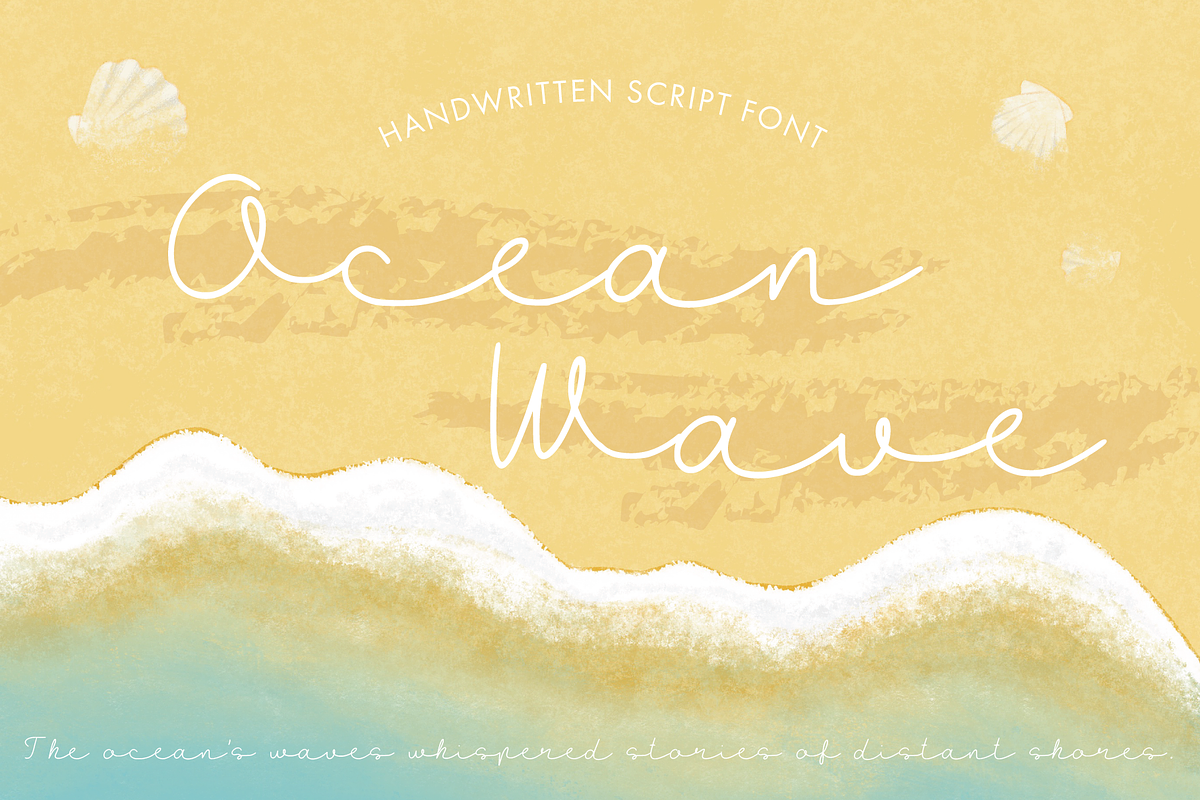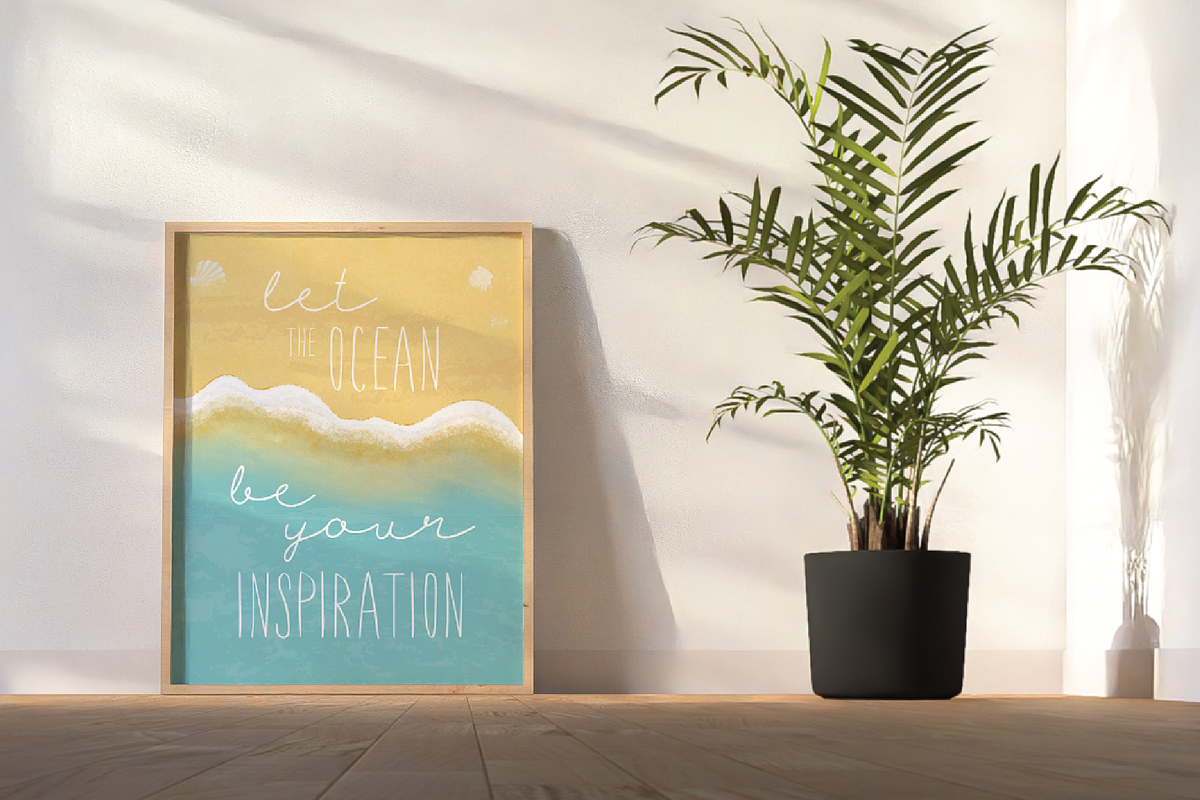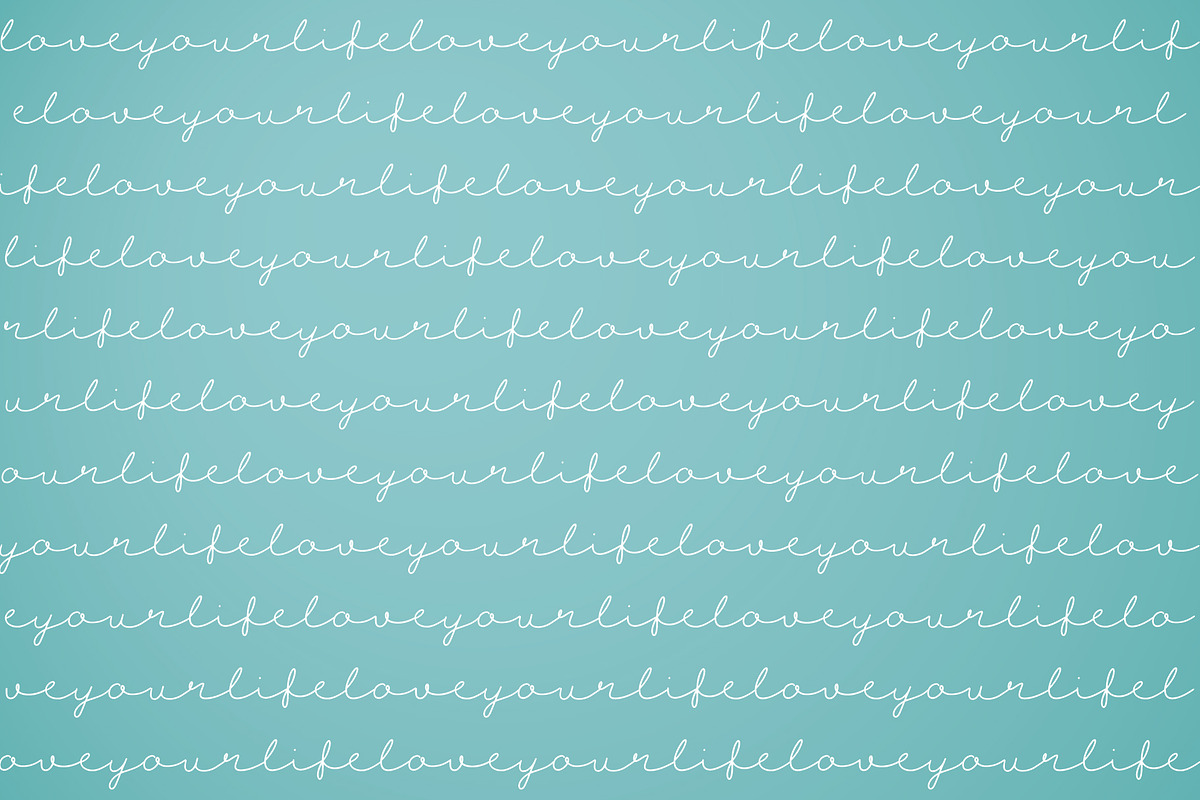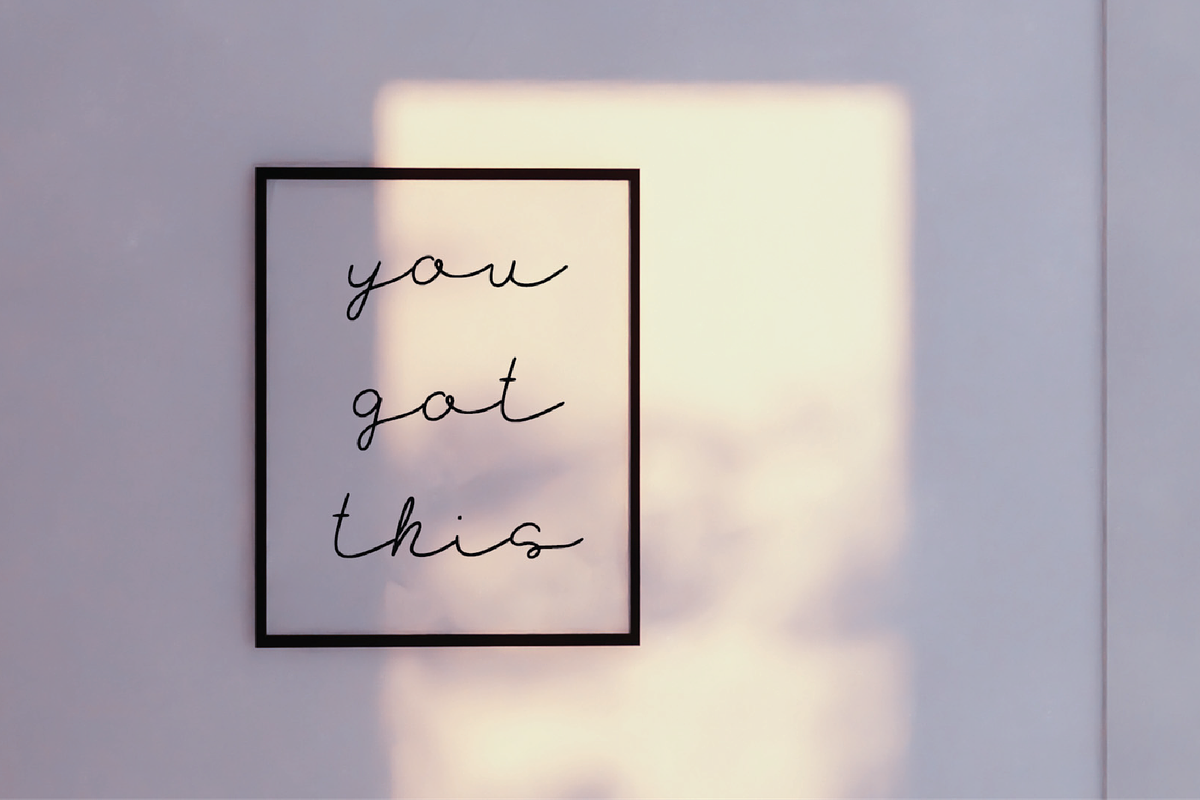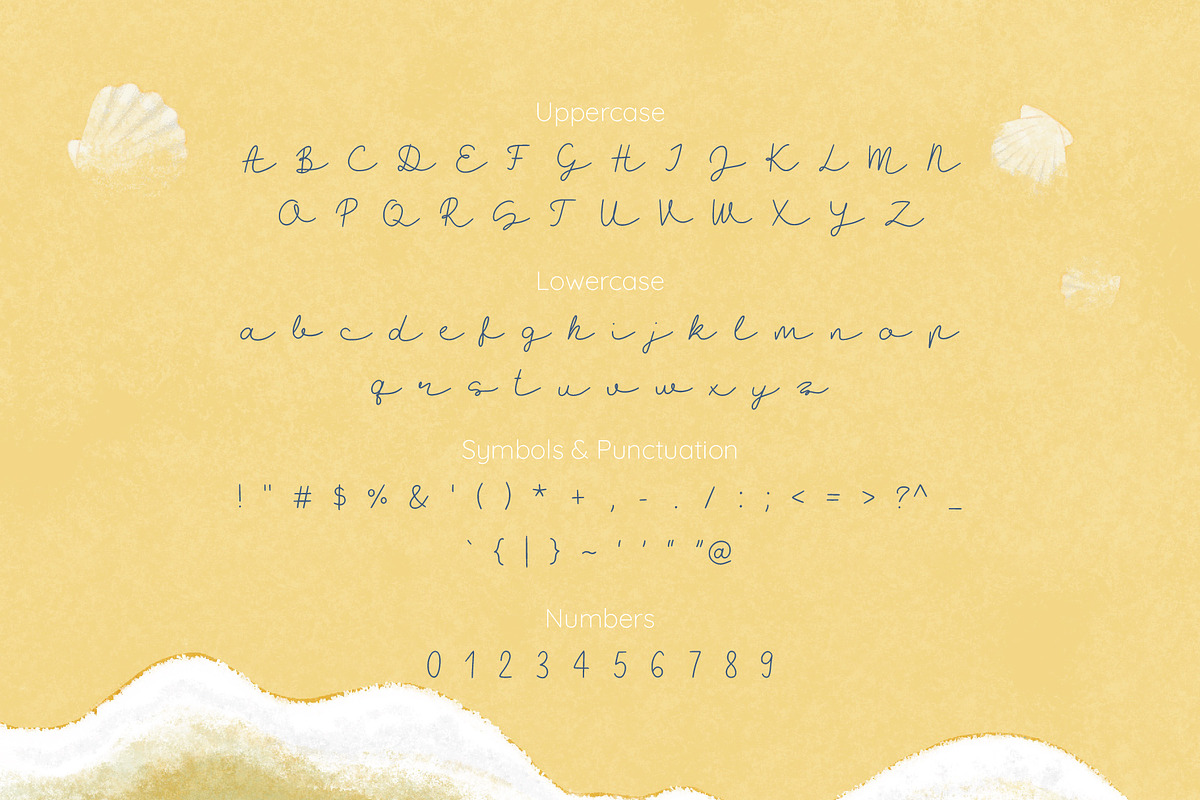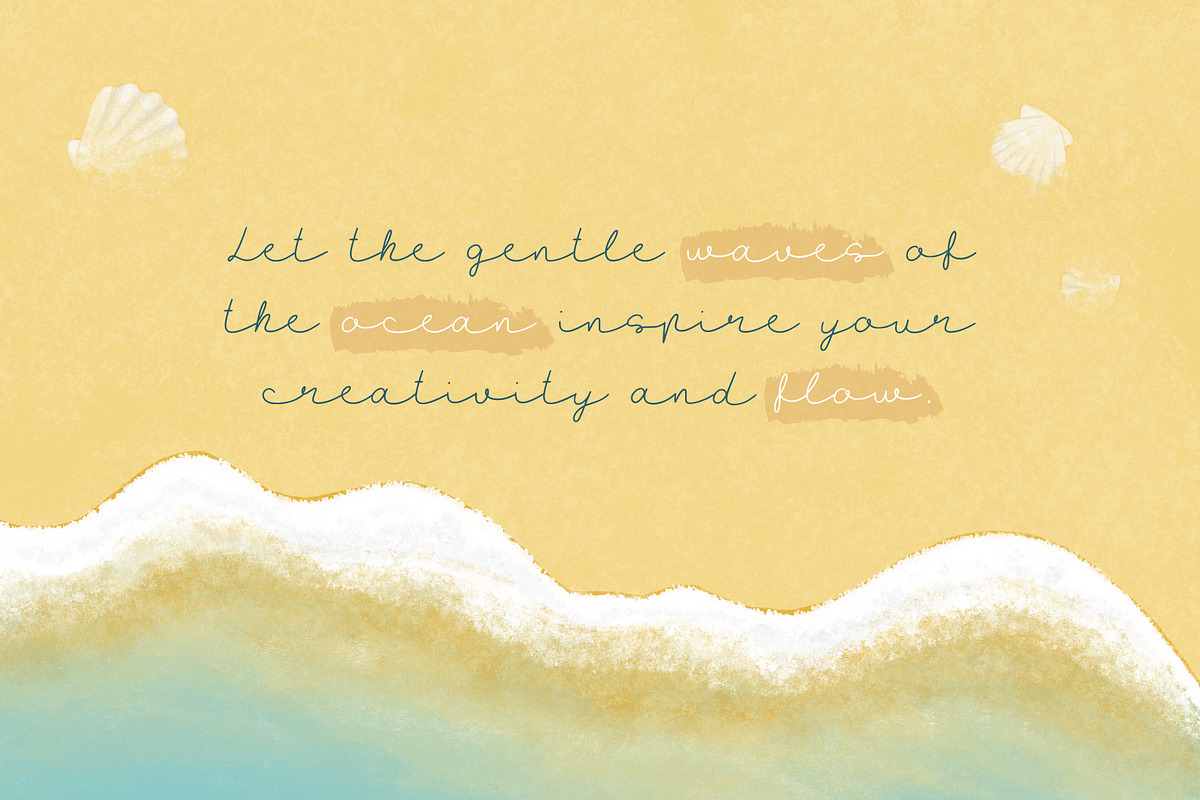
Ocean Wave
Inspired by the elegance and fluidity of the sea, Ocean Wave is a graceful handwritten script font. Featuring thin, elongated letterforms, it beautifully mimics the flowing motion of waves. Each character is designed with gentle curves and subtle flourishes, creating a sense of natural movement and harmony. Perfect for projects that require a delicate yet captivating touch, Ocean Wave is ideal for invitations, branding, logo design, and any work that calls for an organic, flowing style.
Needed a "flowy" font for my brand theme. This fits perfectly, and its obvious the author is paying attention to details because letter waves connect really nice, almost 0 need for additional tweaks.